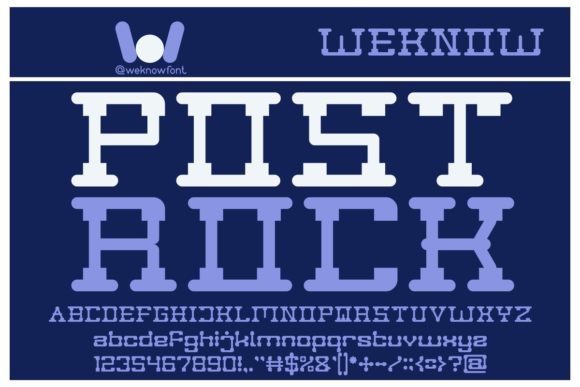
Step into the world of Post Rock, a captivating display font that commands attention with its striking presence. This masterpiece, crafted meticulously by the visionary artisans at weknow, is designed to elevate your creative endeavors to dizzying heights, leaving an indelible mark on the minds of your audience.
Experience the endless possibilities that await you with Post Rock, a font family that embodies the essence of versatility. Whether you seek to create logos that resonate with your brand's identity, captivating headlines that demand attention, or corporate designs that exude professionalism, Post Rock is your perfect companion. Let your creativity flow freely as you embark on a journey of visual storytelling, transforming ordinary designs into extraordinary masterpieces.
Unleash your imagination and explore the boundless applications of Post Rock. Its timeless elegance lends itself seamlessly to apparel designs, adding a touch of sophistication to your fashion creations. Craft movie posters that capture the essence of cinematic brilliance, or create game titles that ignite the fire of adventure. Transform magazines and books into captivating journeys through words, or bring your comic and cartoon characters to life with vibrancy and charm.
In the digital realm, Post Rock shines as a beacon of creativity. Create YouTube videos that captivate your audience with their visual flair, or design Instagram posts that exude an aura of sophistication. Elevate your website's presence with headings that leave a lasting impression, ensuring that your online presence radiates with distinction.
With Post Rock, you possess the power to make a statement, to capture hearts, and to leave an imprint on the world. Its versatility knows no bounds, allowing you to express your unique style and vision across a myriad of platforms. Let your creativity soar as you discover the infinite possibilities that await you with Post Rock. Embrace the font that sets you apart, the font that transforms your designs into works of art.